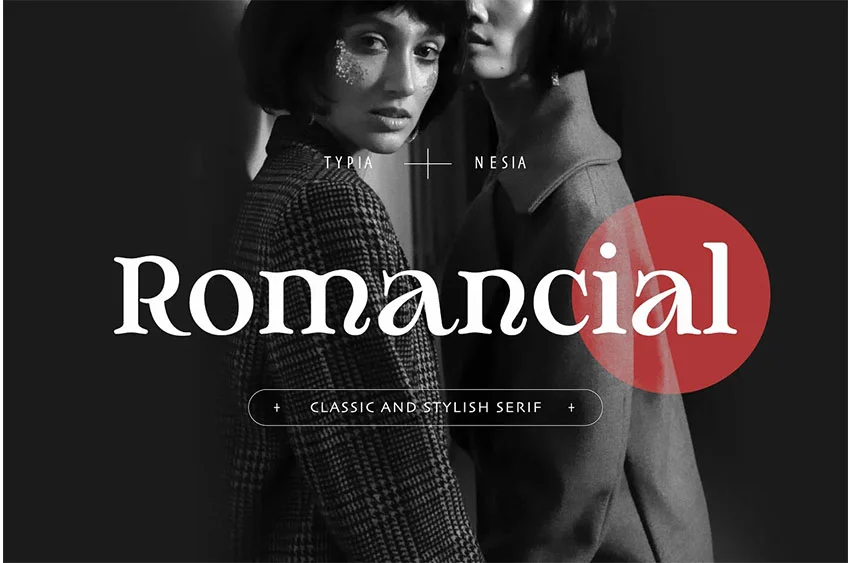
Romancial Font
Romancial Font Serif is perfect for your up coming projects. Such as luxury logo and branding, classy editorial design, woman magazine, cosmetic brand, fashion promotional, art gallery branding, museum, historical of architectural, boutique branding, stationery design, blog design, modern advertising design, card invitation, art quote, home decor, fantasy movie / game, novel / book / cover title, special events and any more.